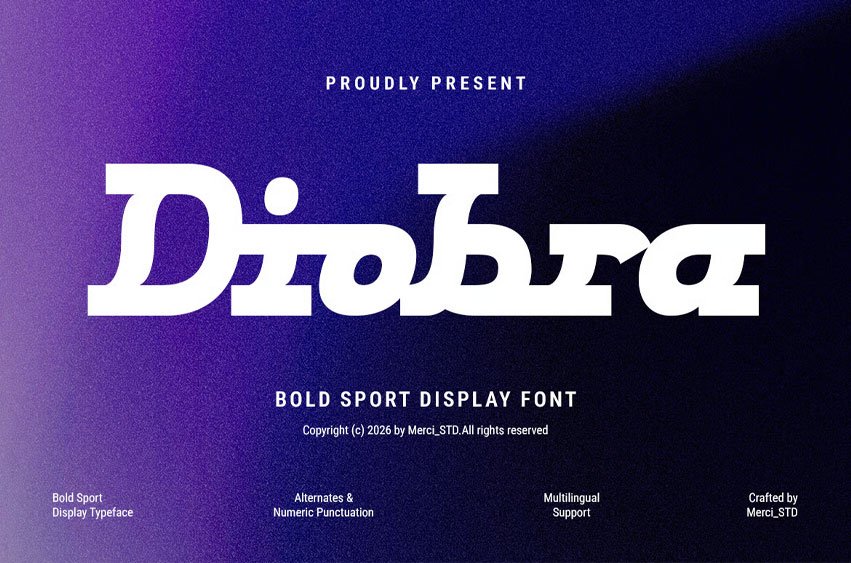
Diobra Font is a bold sport display font designed with strong geometric shapes and powerful character forms that create an energetic and competitive visual impact. Perfect for sports branding, esports logos, gym posters, tournament promotions, and dynamic headline designs.
Its bold presence and modern sporty aesthetic make it ideal for projects that demand strength, speed, and confidence.